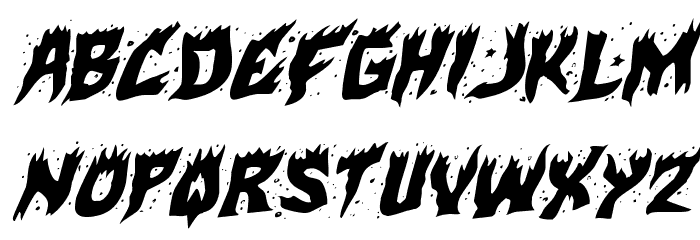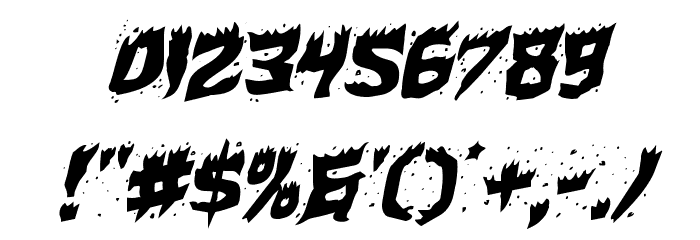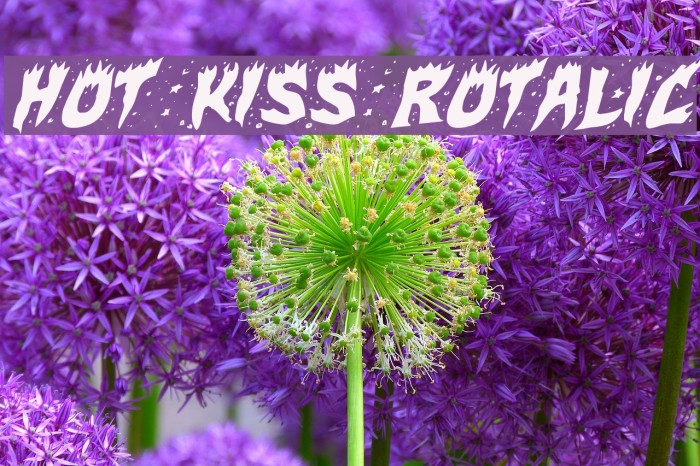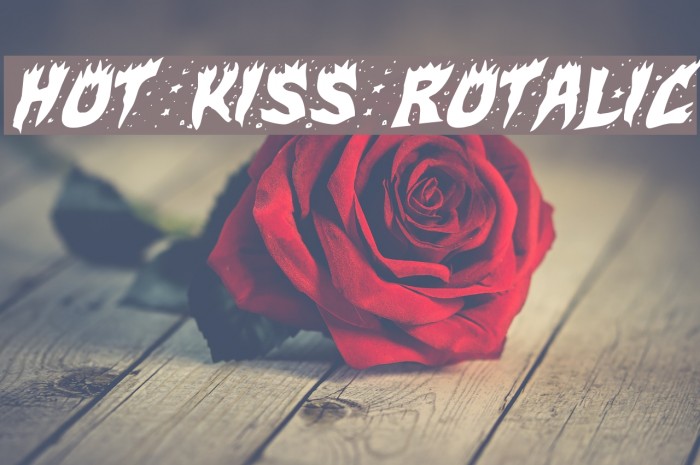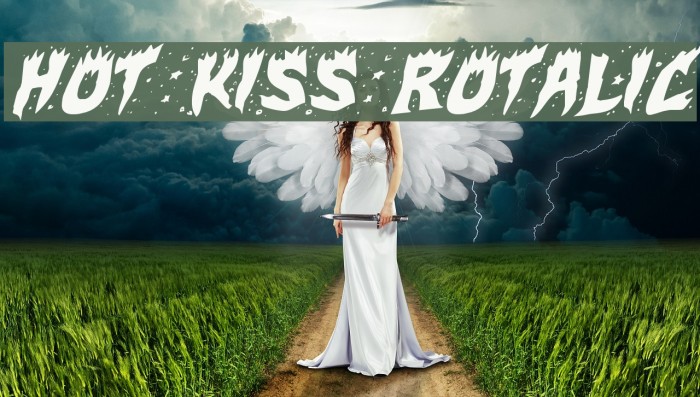
Hot Kiss Rotalic Font
This font features a bold and dynamic style with jagged, flame-like edges that give it an intense and energetic appearance. The characters are heavily stylized, with sharp angles and a sense of movement, making it ideal for eye-catching designs. The uppercase and lowercase letters maintain a consistent theme, while the numbers and special characters are equally bold and expressive. This font's unique design is perfect for projects that require a dramatic and impactful visual presence.
A bold, jagged font with flame-like edges for dramatic designs.
- Proposed Projects: Ideal for music album covers, event posters, video game titles, and edgy branding projects.